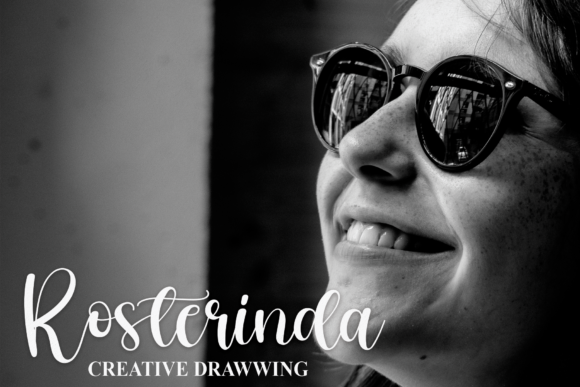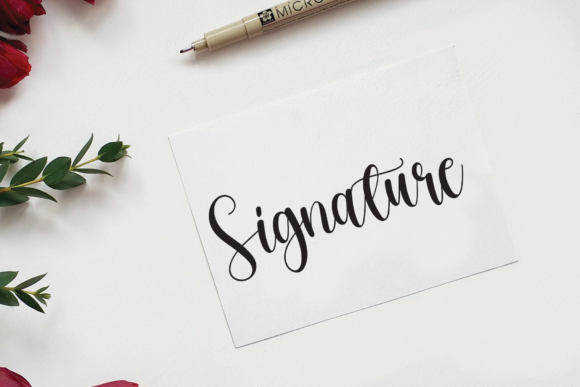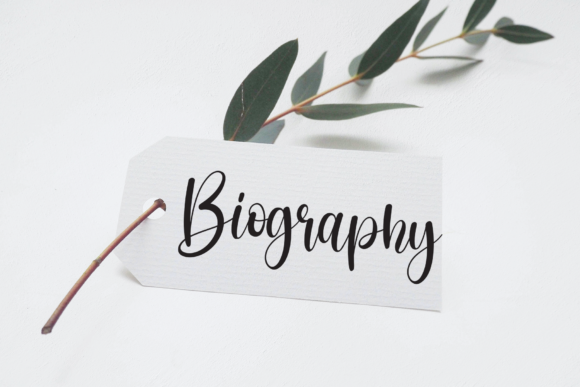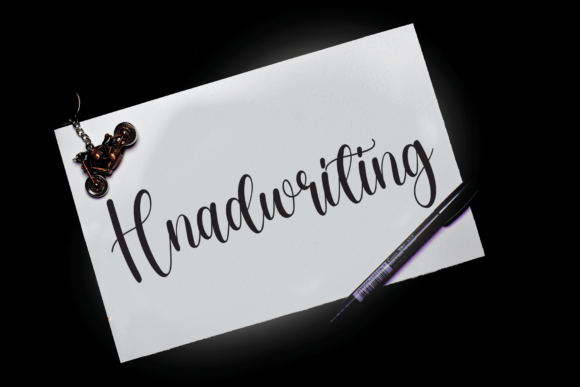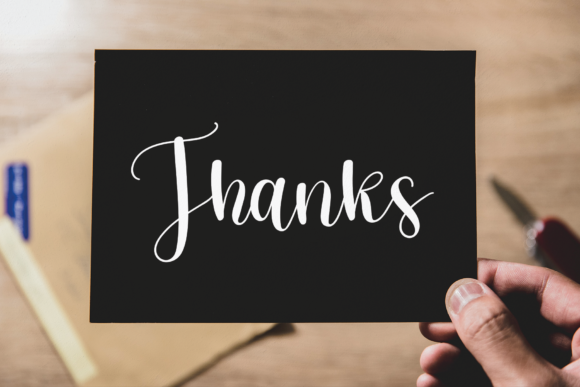
Unleash Your Creativity with the Timeless Beauty of Calligraphy Font
Do you remember the moment when you first fell in love with the world of typography? For many of us, it’s a nostalgic memory of scribbling our names in our favorite childhood notebooks, or admiring the intricate lettering on our grandparents’ antique books. Whatever the spark, it’s a moment that can ignite a lifelong passion for the art of writing.
One font that has captured the hearts of designers and artists alike is the Calligraphy Font. This elegant and refined handwritten font is a masterclass in balance and proportion, with each letter carefully crafted to evoke a sense of sophistication and elegance. Whether you’re a seasoned designer or a creative hobbyist, the Calligraphy Font is a valuable tool that can add a touch of whimsy and charm to any project.
Calligraphy Font Key Features
- Unique Characteristics: Features elegant, handwritten-like letterforms with subtle flourishes and connections between letters, creating a sophisticated and artistic aesthetic.
Designer Review: Calligraphy Font
Overall, I think the Calligraphy Font is a beautiful addition to any design project. ✨ It’s perfect for creating elegant and sophisticated headings, especially when paired with a minimalist background. ✨ The fluid curves and flourishes add a touch of sophistication to any text, making it a great choice for formal invitations, wedding designs, and high-end branding.
However, there are some limitations to consider. ⚠️ One of the main issues is that the font can be quite difficult to read in smaller sizes, especially when used in body text. ⚠️ Additionally, the font’s complexity can make it challenging to pair with other fonts, which may limit its versatility in certain design projects.
- ✨ Elegant and sophisticated design
- ✨ Perfect for formal and high-end branding
- ✨ Beautifully paired with minimalist backgrounds
- ⚠️ Difficult to read in smaller sizes
- ⚠️ Limited versatility due to complex design
Overall, I would recommend the Calligraphy Font for specific design projects where its unique features can shine. However, it may not be the best choice for projects that require clear and concise body text or for designers who prefer a more versatile font.
Practical Application Guide for Calligraphy Font
Tips for Getting the Most Out of Calligraphy Font
Here are some tips to help you get the most out of calligraphy font:
- Choose a font that complements your design.
- Experiment with different font sizes and styles.
- Use calligraphy font for titles, headings, and emphasis.
- Combine calligraphy font with other fonts for a unique look.
Common Use Cases for Calligraphy Font
Calligraphy font is commonly used for:
- Anniversary and birthday cards.
- Restaurant and cafe menus.
- Wedding and event signage.
Alternatives to Calligraphy Font for Designers
Lobster Font is a fun, casual script font that’s perfect for adding a touch of personality to your designs. It’s great for use in headings, titles, and other elements where you want to convey a sense of playfulness and whimsy. Compared to Calligraphy Font, Lobster Font is more modern and has a more relaxed feel.